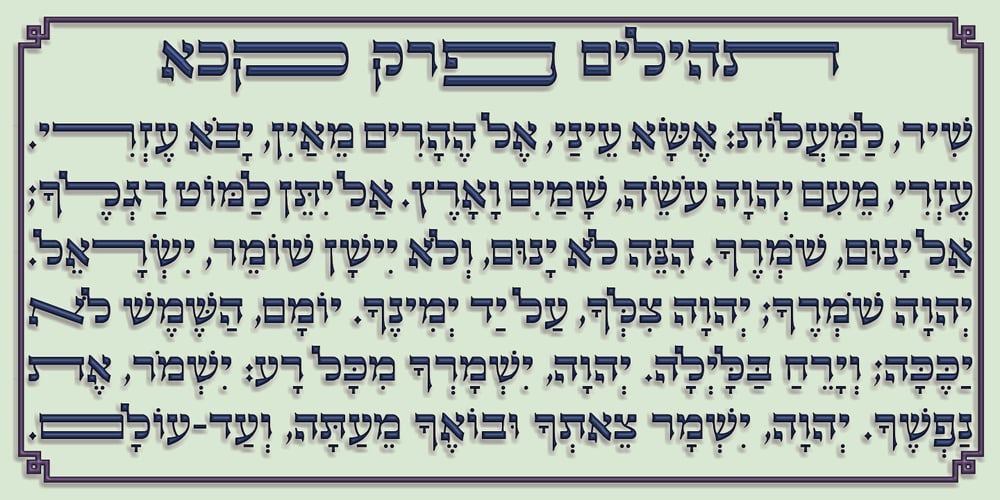
Hebrew Torah Sans Font Family was designed by Sami Artur Mandelbaum and published by Samtype. Hebrew Torah Sans contains 1 styles and family package options. Beautiful caligraphic font and can be used with long texts.